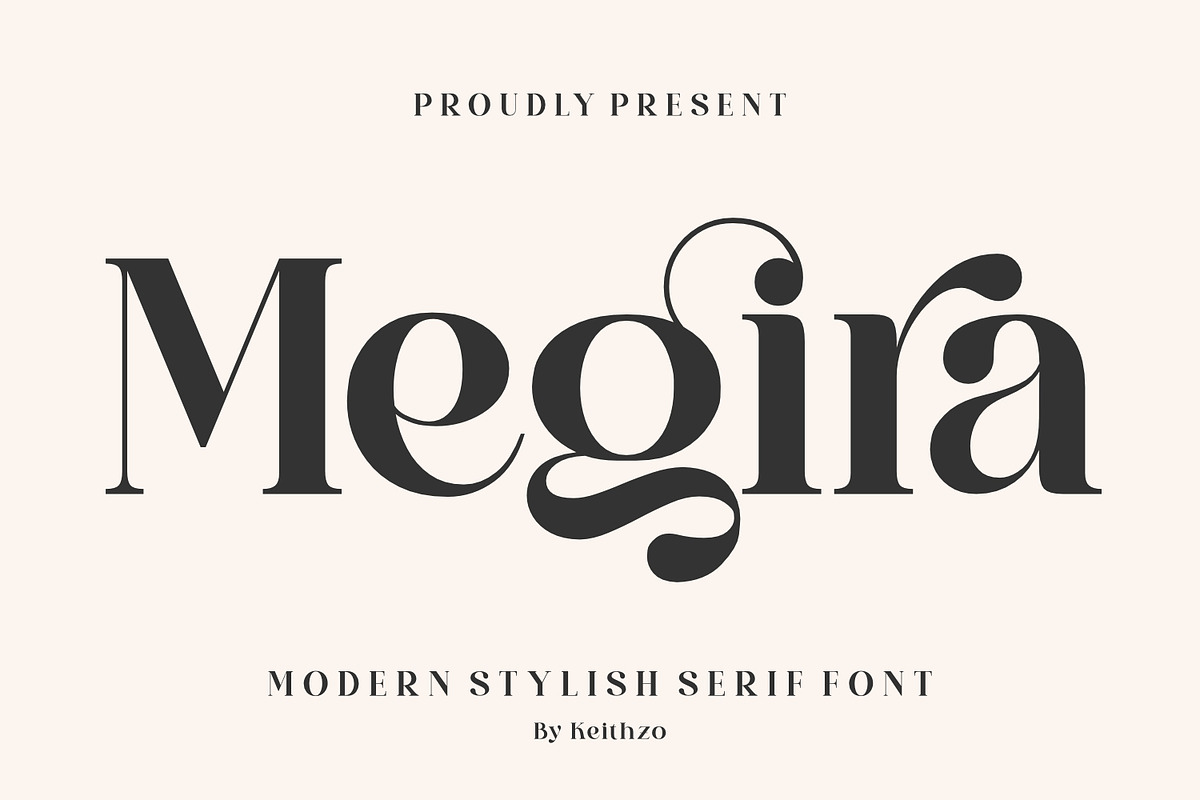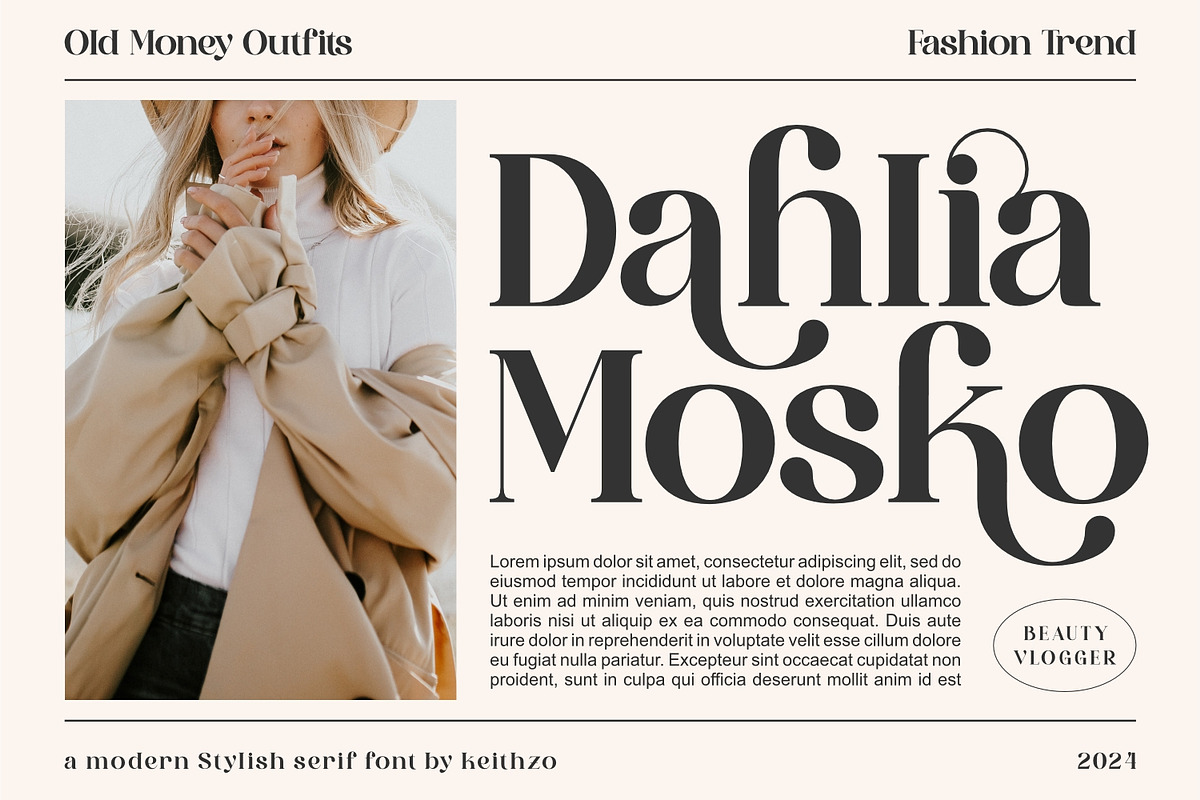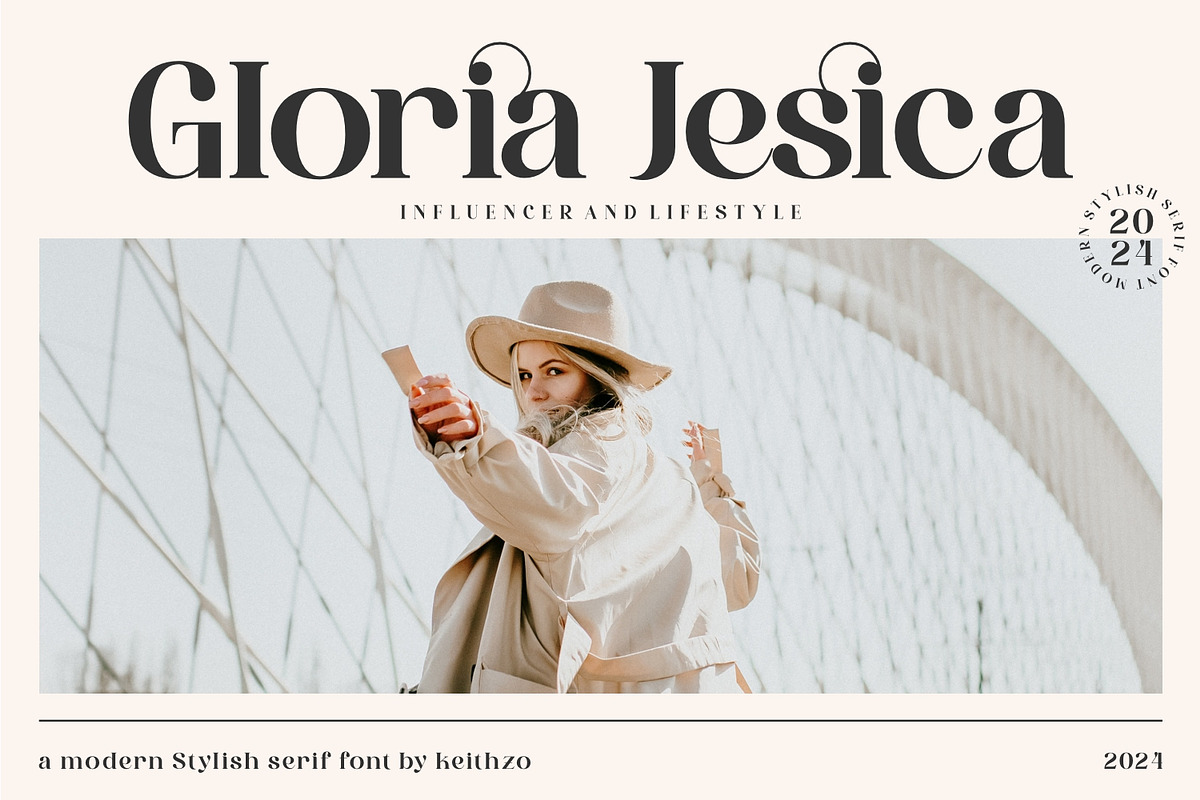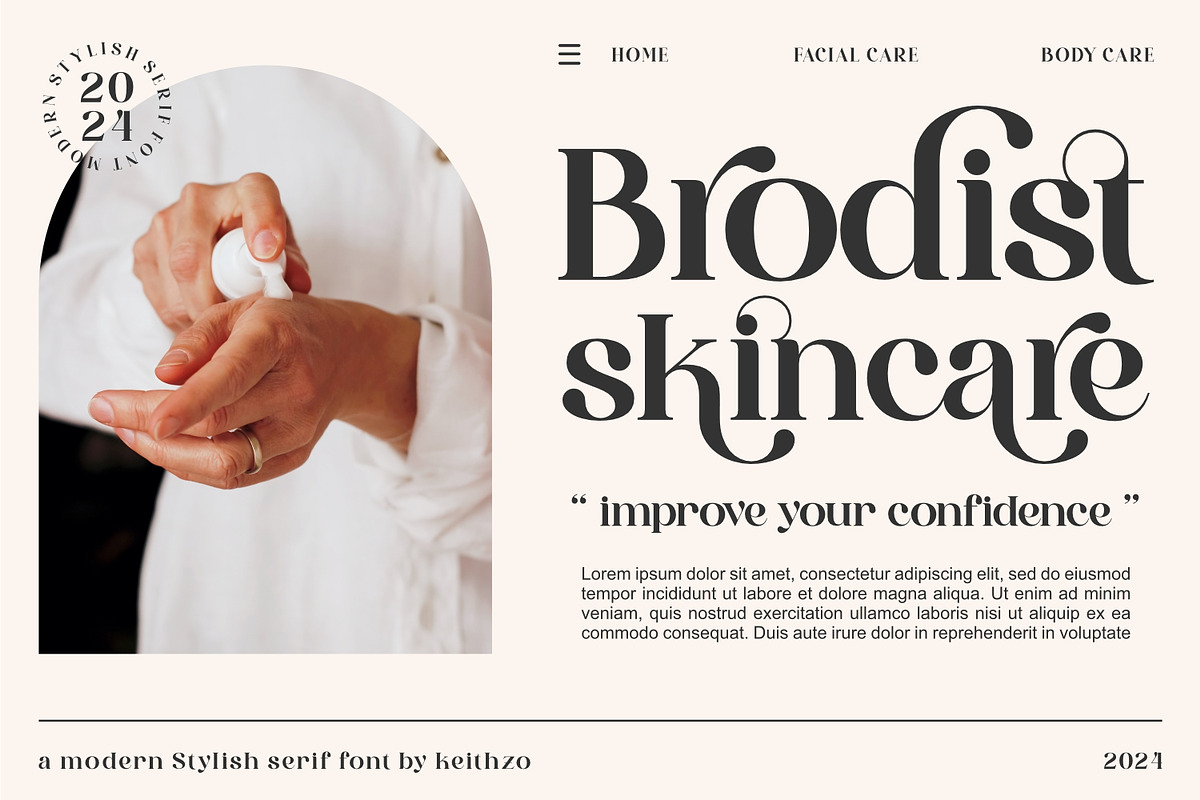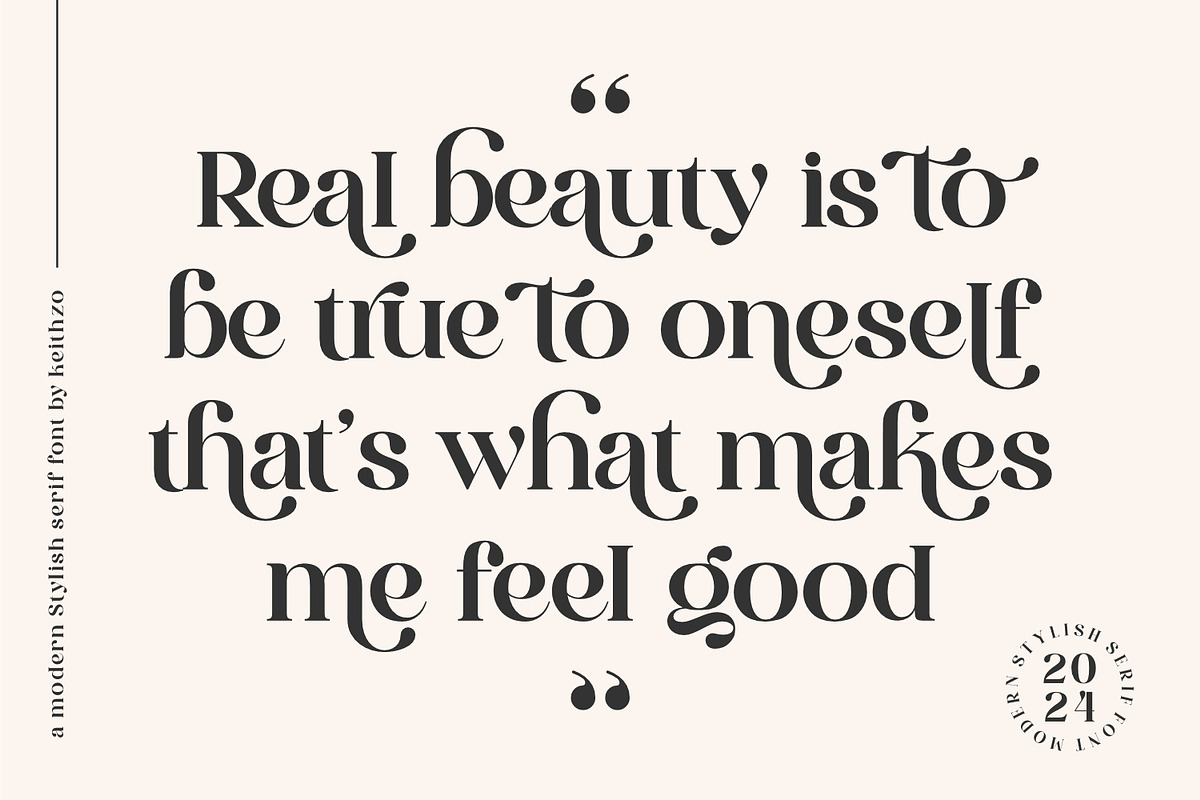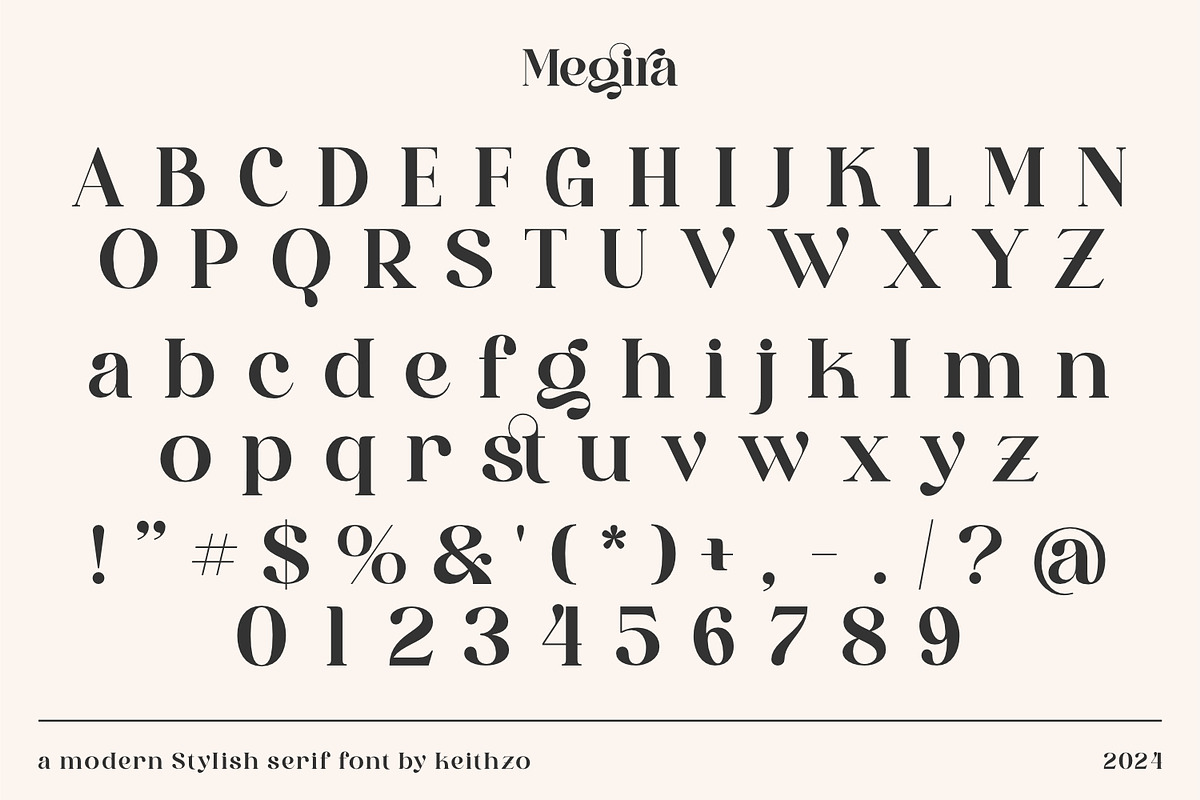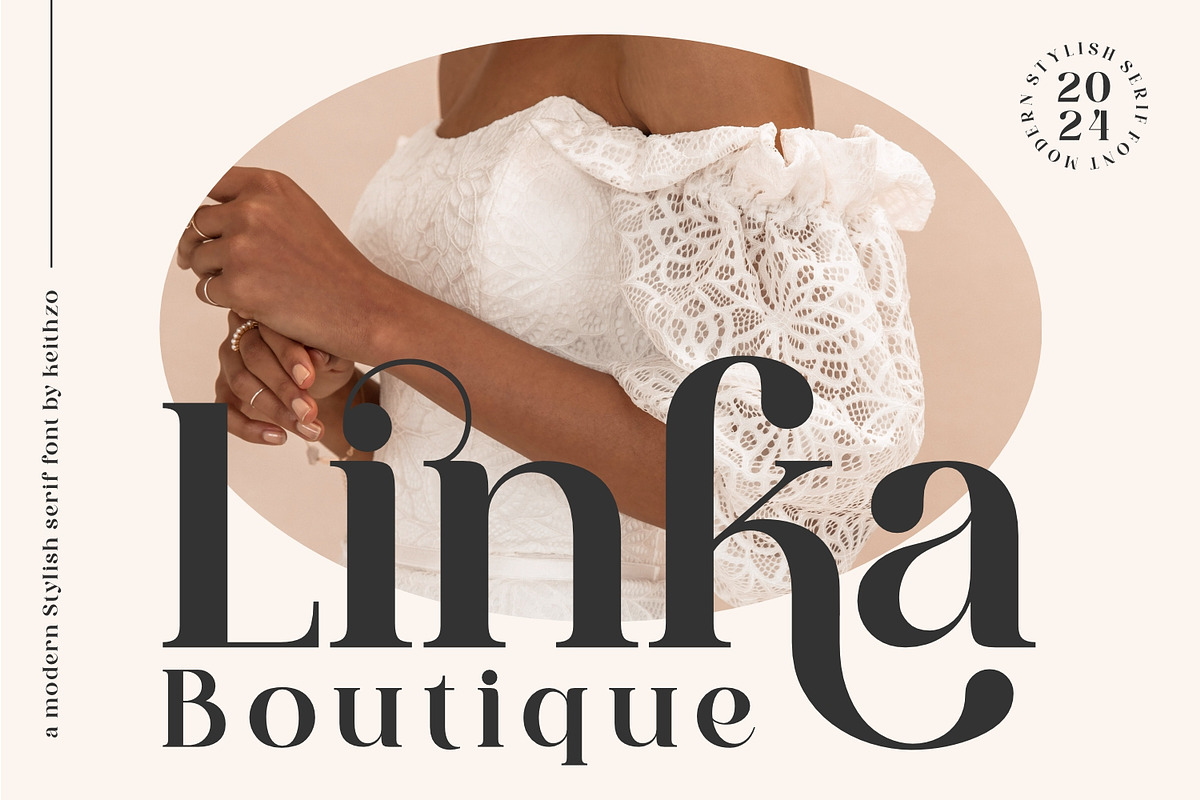
Megira - Stylish Serif Font
Megira is a modern, stylish serif display font that commands attention with its refined lines and sleek curves. Its sophisticated presence lends an air of elegance to any design project, from editorial layouts to branding materials. Perfect for conveying professionalism and contemporary aesthetics in various creative endeavors.
- Stylistic and Ligatures
- Multiple Languages Supported